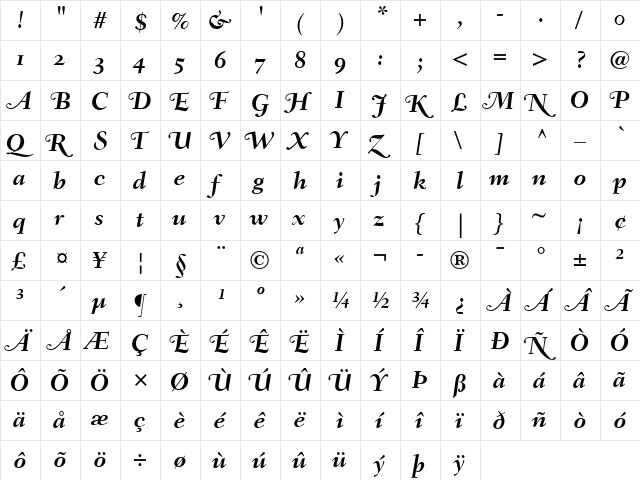
Fairfield LH SwMediumItalicOsF Bold Italic Font Preview
Fairfield LH SwMediumItalicOsF Bold Italic
Fairfield LH SwMediumItalicOsF Bold Italic Font Details
Design Context for Fairfield LH SwMediumItalicOsF Typeface
Fairfield LH SwMediumItalicOsF is a composed and adaptable typeface that performs quietly and consistently across a wide range of design contexts. Its italic angle brings a sense of urgency and motion to the letterforms. Its bold stroke weight gives it real presence on the page.
Pro Tip: Use Fairfield LH SwMediumItalicOsF for emphasis, pull quotes, and subheadings where its slanted energy can add rhythm to the layout.